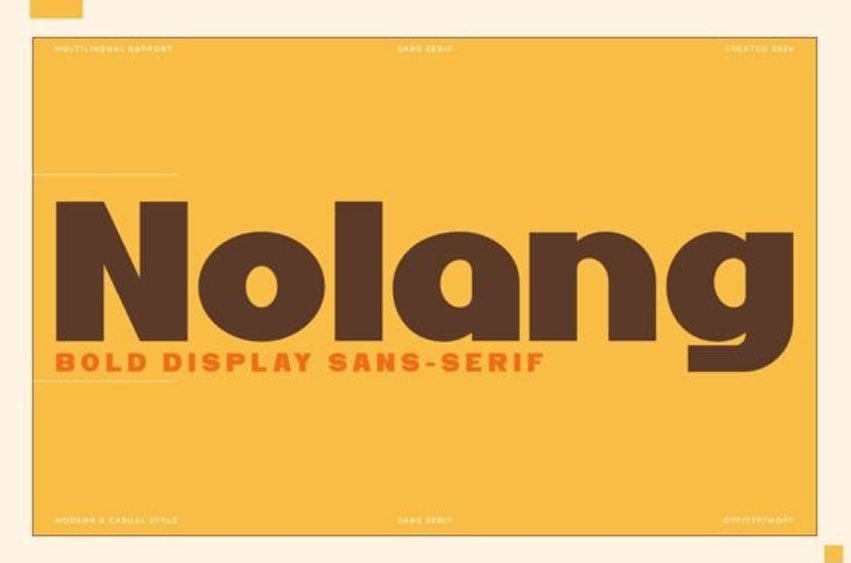
Nolang Font
Nolang Font is a bold display sans serif font. It’s thick, modern, and easy to read, making it perfect for headlines, posters, and advertisements.
Its clean lines and simple design give a strong and confident look to any text.